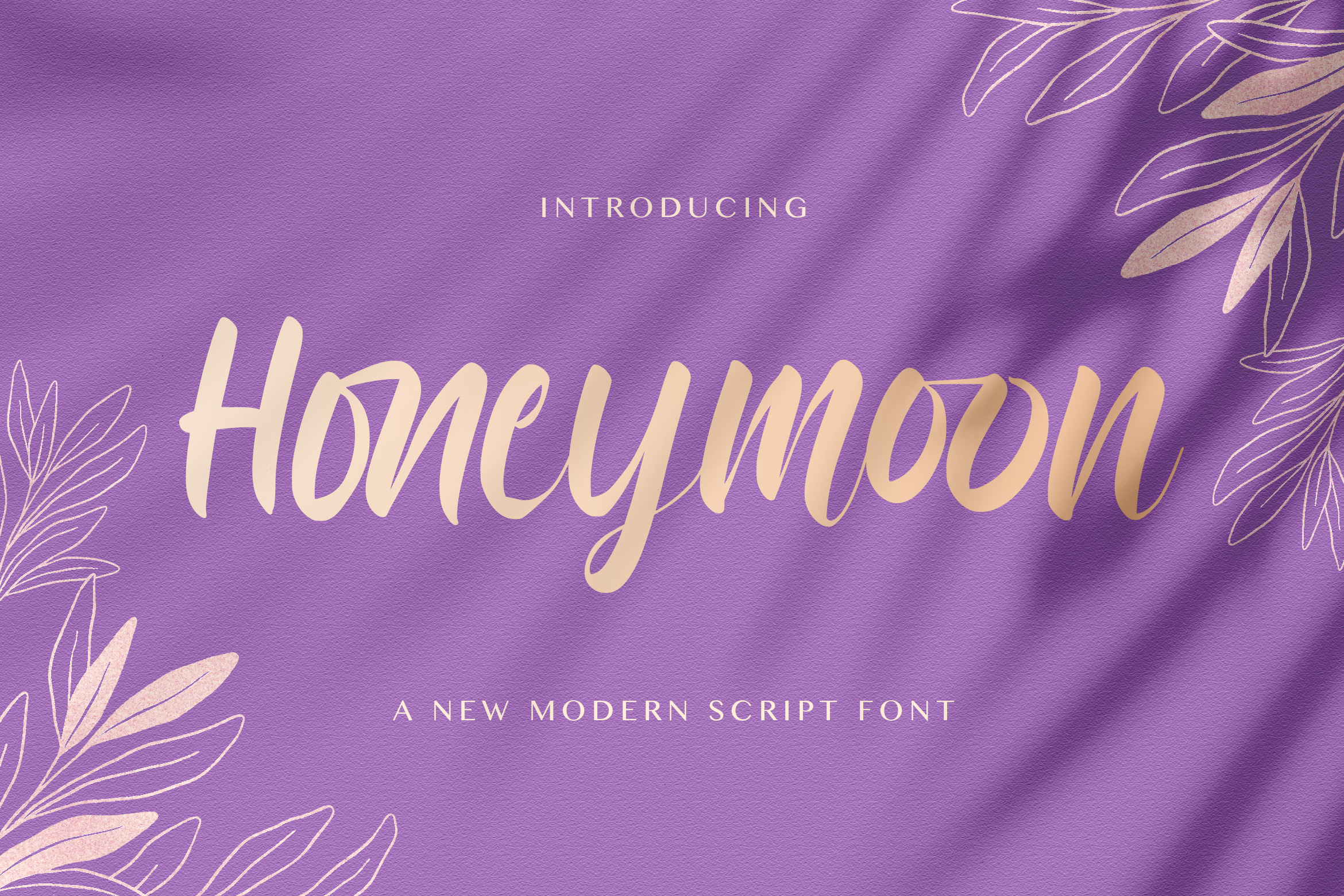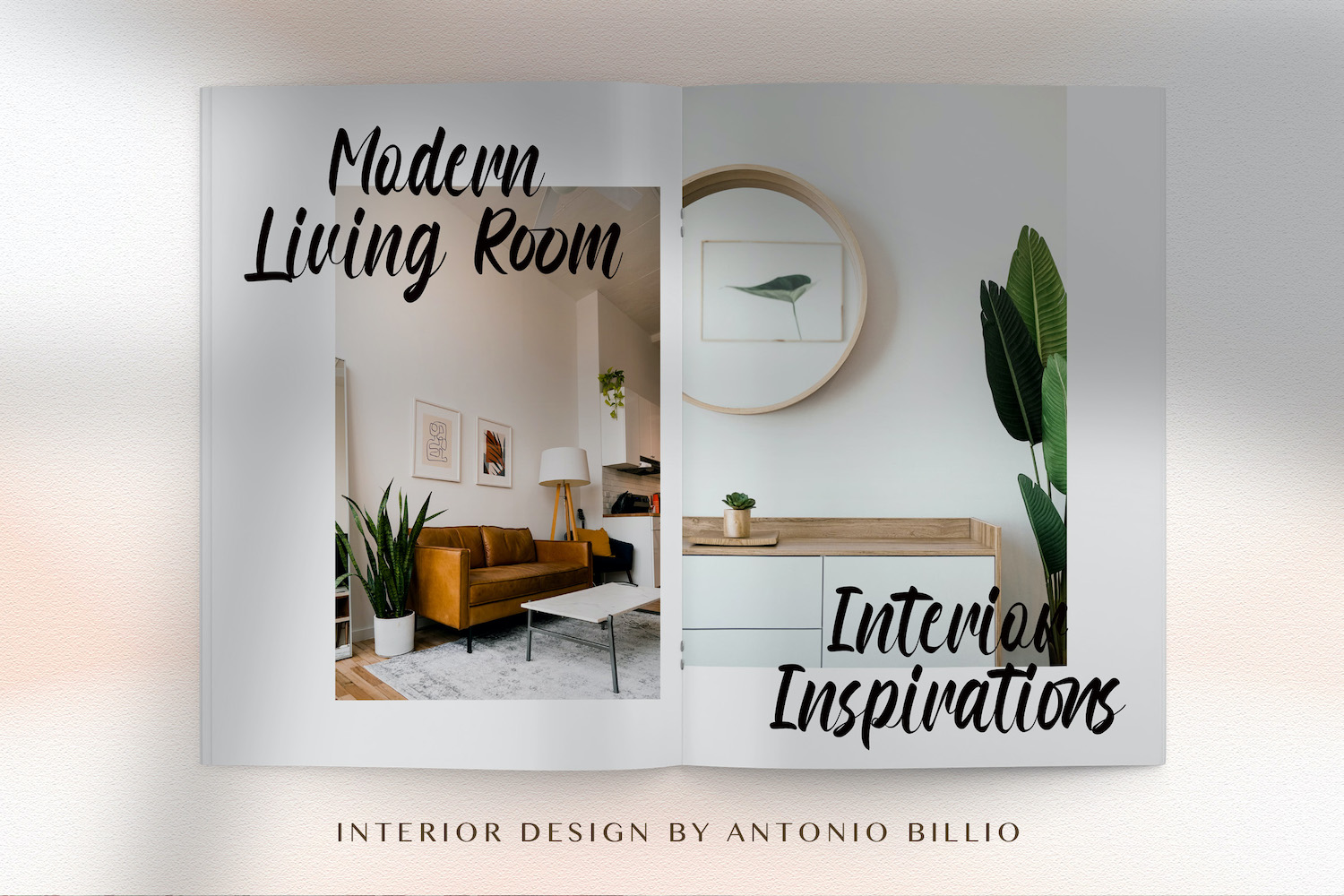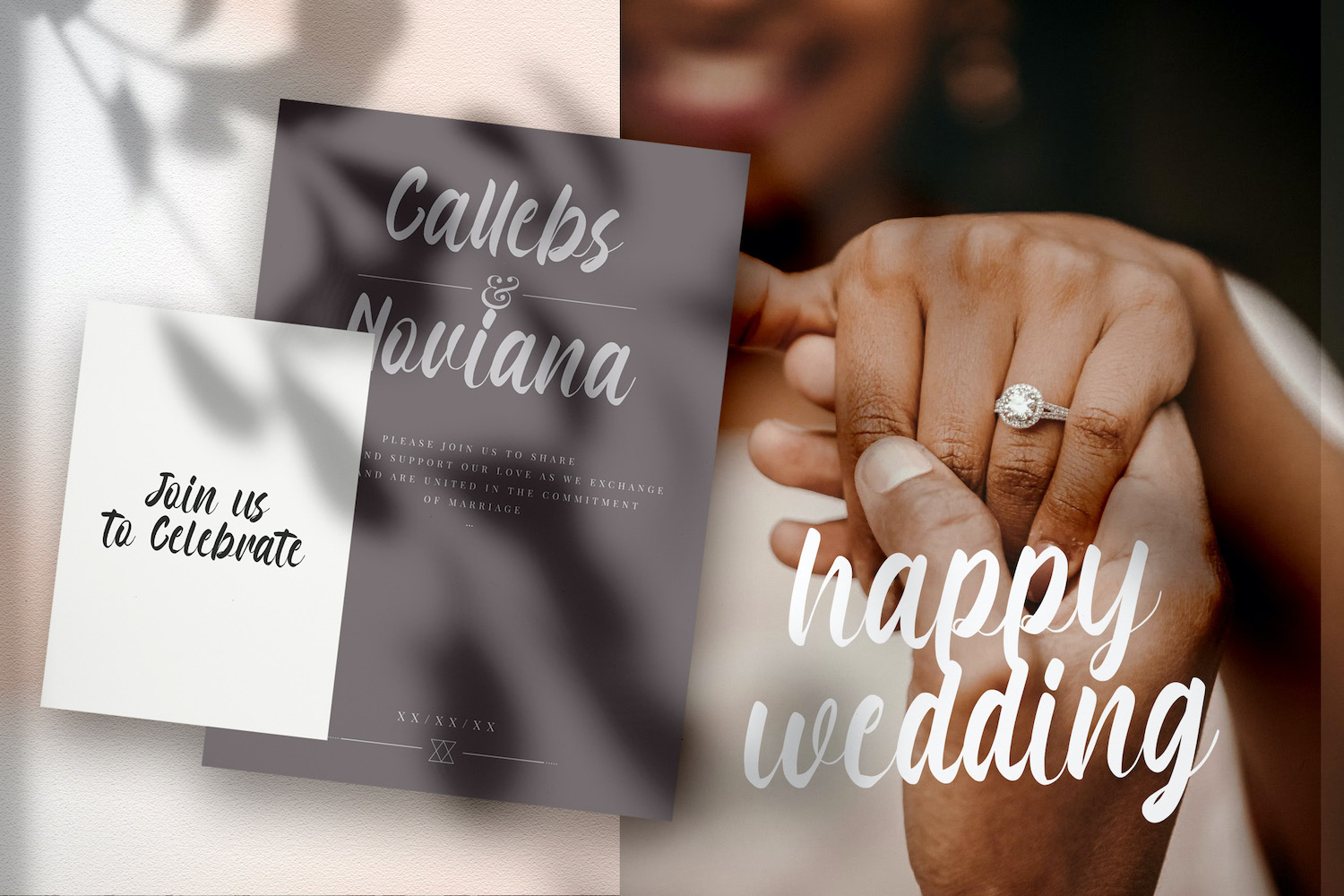
Honeymoon is built to make the “script font decision” easier: it gives you a handwritten feel that’s romantic and friendly, without turning your layout into something overly ornate or hard to read. Designed by Stringlabs (Virgiawan Listanto), it’s a script/handwritten typeface with a Free for personal use license.
You usually reach for a script when you want something personal—then hesitate because the wrong one can look messy, childish, or too formal. Honeymoon sits in that sweet spot: bold, smooth strokes with a natural hand-drawn rhythm, giving headlines and names an instant warmth while still feeling polished.
Choose Honeymoon when:
- You need an expressive logo wordmark, product name, or brand headline that should feel human and inviting.
- Your project leans into romance, lifestyle, beauty, fashion, food, weddings, or boutique packaging—anywhere “handmade” energy helps.
- You’re designing covers, posters, social graphics, invitations, labels, or signage where the text will be used large enough to show off the curves.
- You want smoother letter flow—Honeymoon includes built-in kerning and standard ligatures to help common letter pairs look more natural.
Skip Honeymoon (or use it only as an accent) when:
- You’re setting long paragraphs, captions, or UI text—script shapes and varying strokes will fatigue readability.
- The design requires a strictly corporate, technical, or ultra-minimal tone (it will feel too personal).
- Your layout demands tiny sizes or very tight spacing; the thicker strokes and lively shapes can close in.
- You must rely on all-caps styling as a primary look—this style is strongest in title case and short phrases.
Style-wise, Honeymoon reads like a confident modern hand-lettered script: smoother and cleaner than rough marker lettering, but more relaxed and approachable than formal calligraphy. Its thick strokes and rounded forms create strong contrast against simple backgrounds, and it pairs best with restrained supporting text so the script can stay the hero.
If your goal is to add a warm, modern handwritten signature to a personal project—especially for branding, packaging, and celebration-focused designs—Honeymoon is a solid pick. If your priority is maximum readability at small sizes or a neutral, business-first voice, keep it as a small accent or choose a more straightforward text style instead.